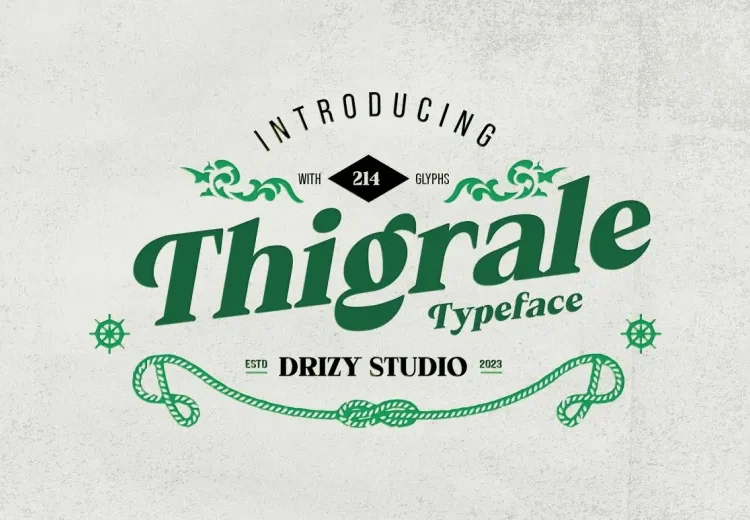
Thigrale Font
Thigrale is a vintage serif typeface that encapsulates an elegant and timeless aesthetic, drawing inspiration from classic typography and printing styles. This font recalls the charm of past art forms, making it a perfect choice for designs that require a touch of nostalgia and sophistication.
Features of Thigrale:
• Includes both uppercase and lowercase letters
• Supports a wide range of punctuation
• Offers alternate ligatures for enhanced design flexibility
• Comes with numbers for comprehensive usage